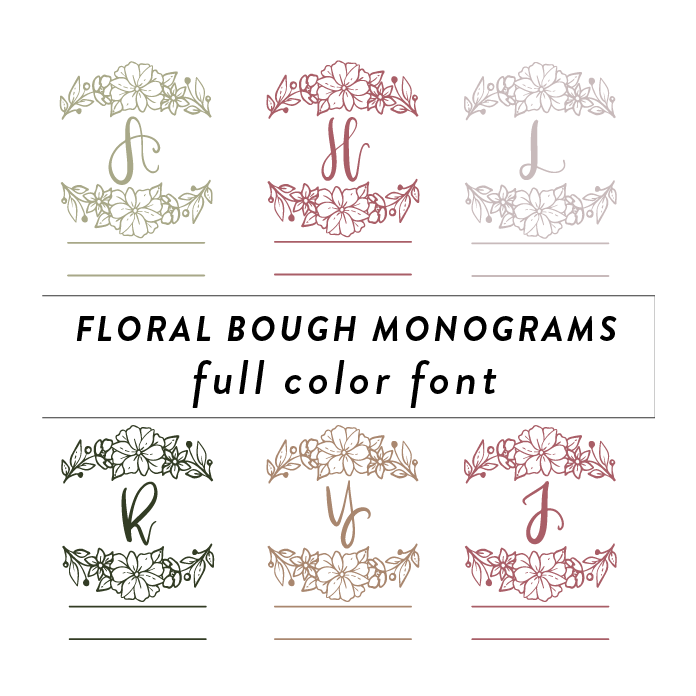
Floral Bough Monograms Full Color Font is a vibrant and elegant font design featuring intricate floral elements in a monogram style. Perfect for adding a touch of sophistication and charm to any design project, this font is ideal for creating personalized home decor to represent your family. The colorful floral details make this font stand out and add a unique and beautiful touch to any project.